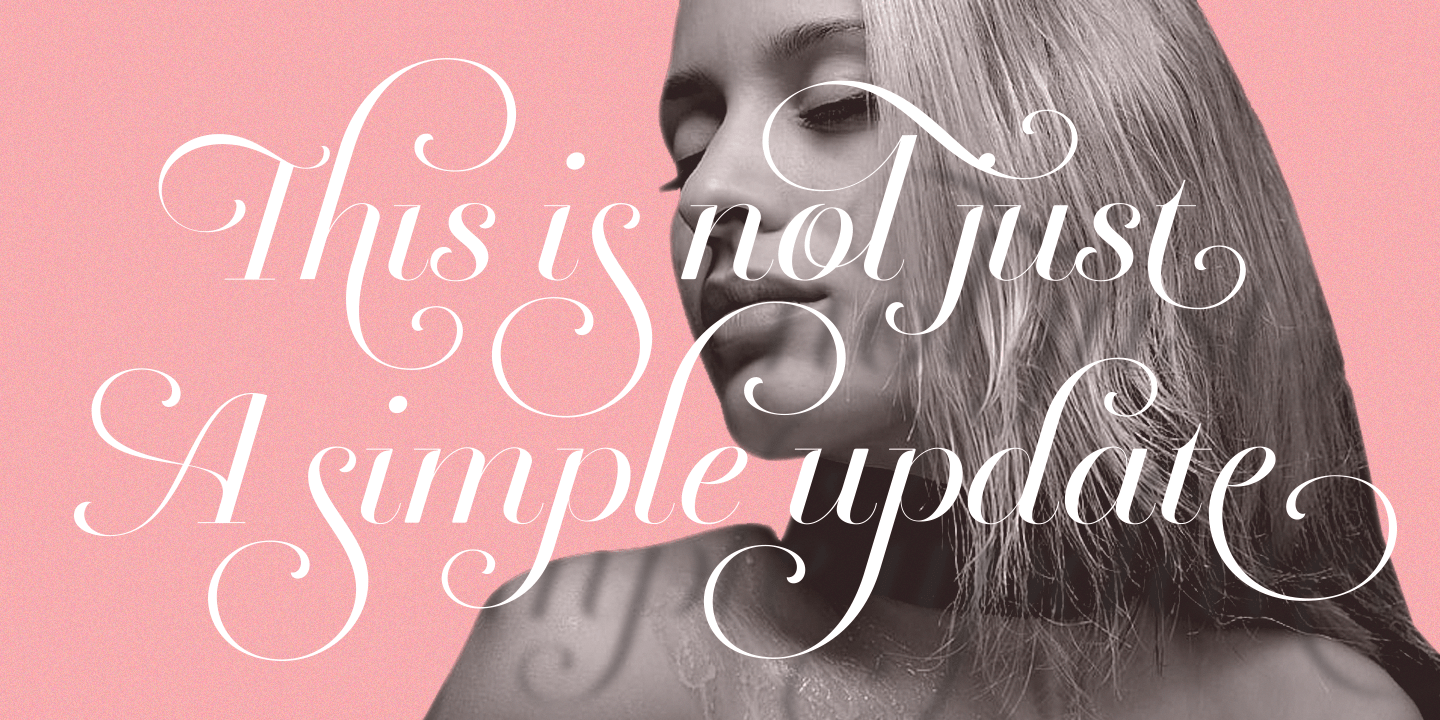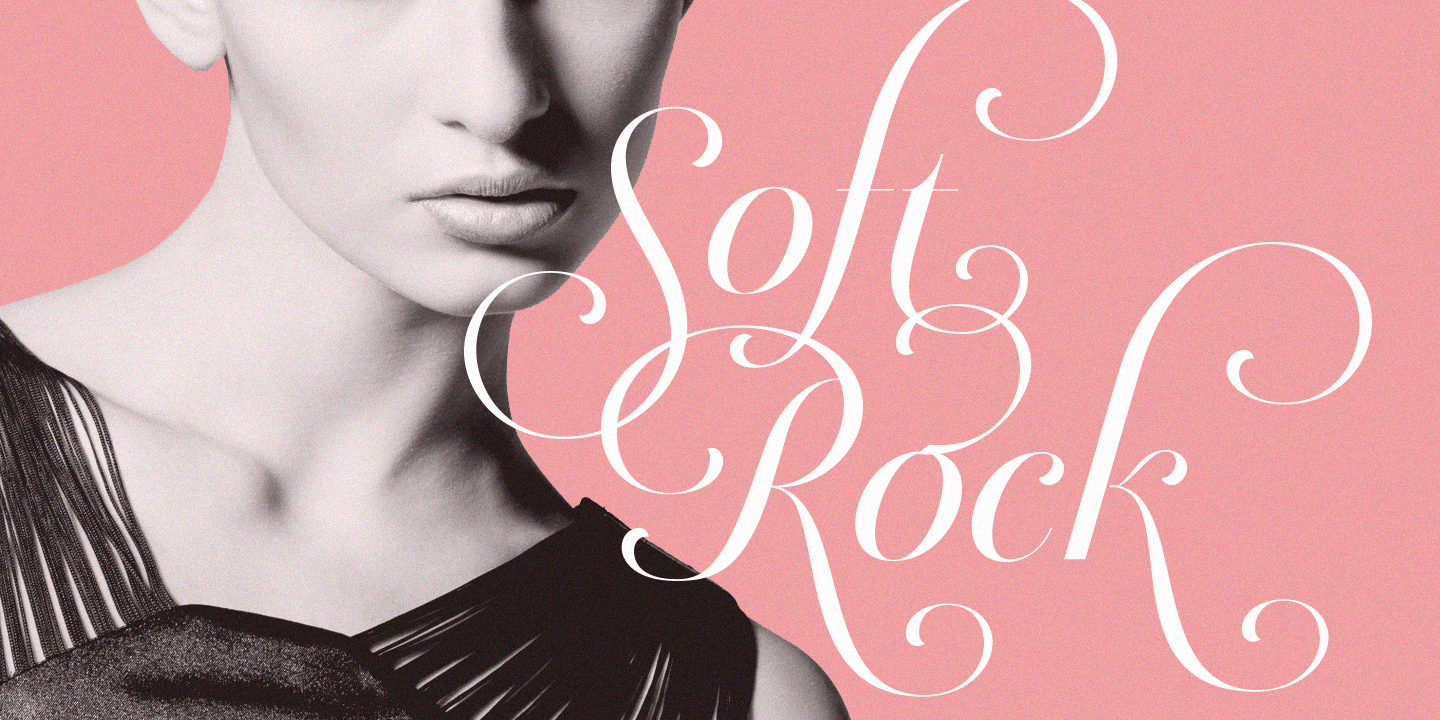
About Breathe Neue
Breathe Neue is not just an update of my renowned Breathe of 2010, this is something else… Many times I find myself looking for inspiration in my previous creations. The original Breathe has something on its essence: Something that almost 10 years later…